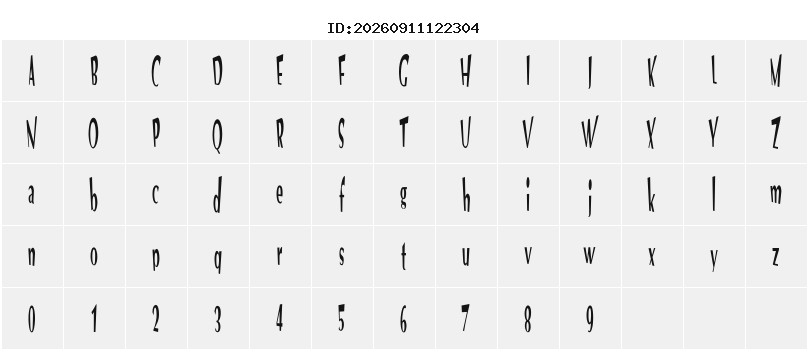
• Font Name: VTC Optika
• Full Font Name: VTC Optika Regular
• Designer: WolfBainX
About VTC Optika.ttf
VTC Optika.ttf is a modern, elegant sans-serif font designed for ultimate readability and visual harmony. Perfect for branding, headlines, web design, and print materials.